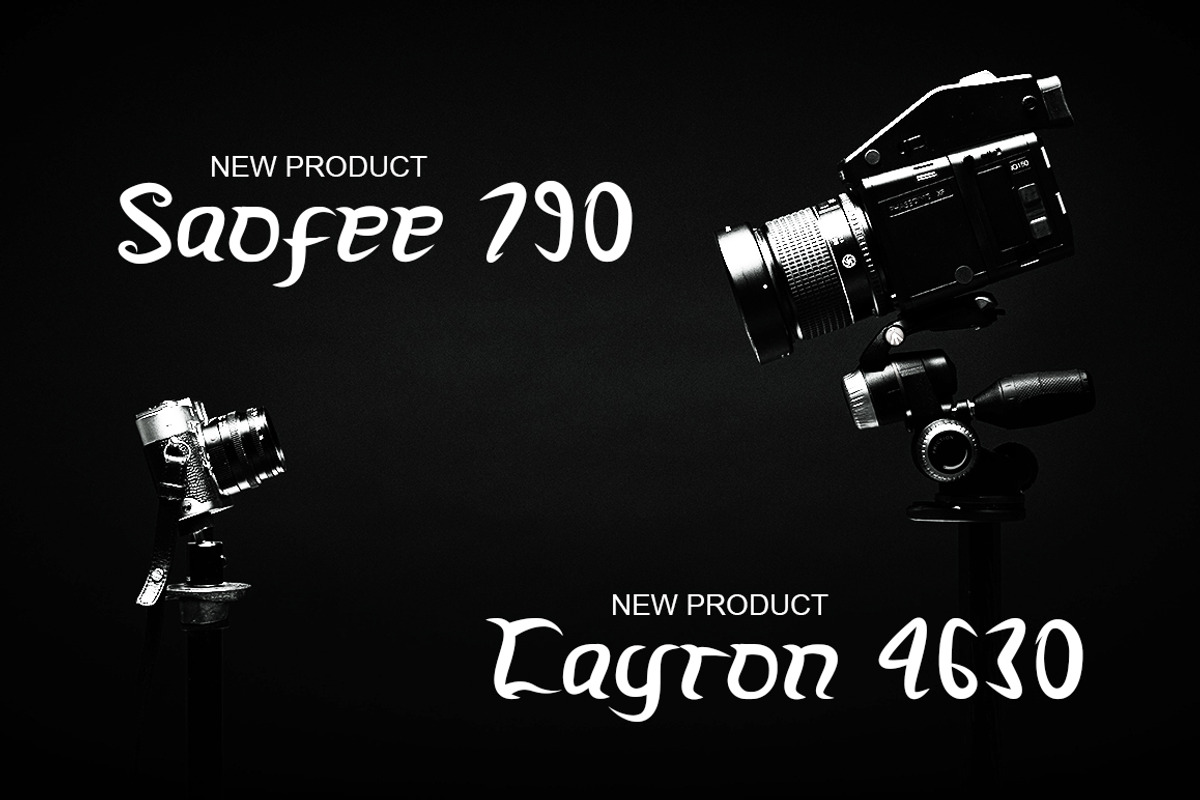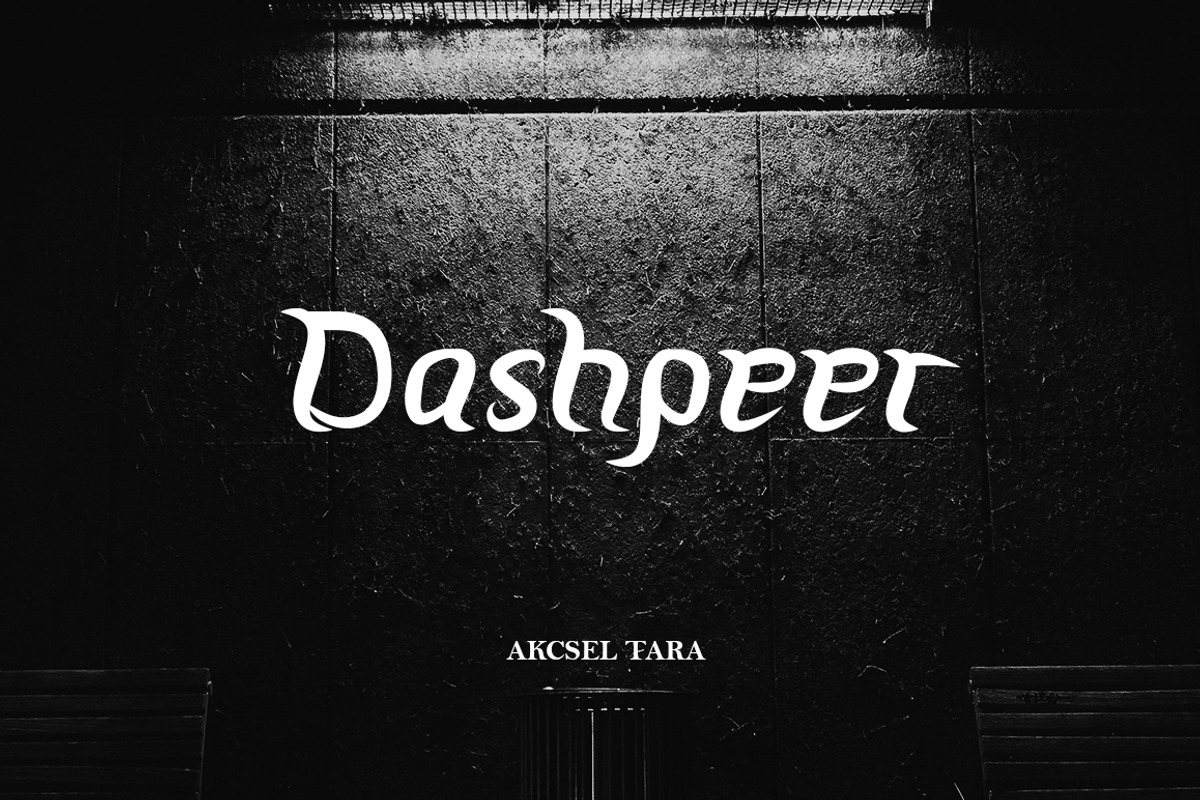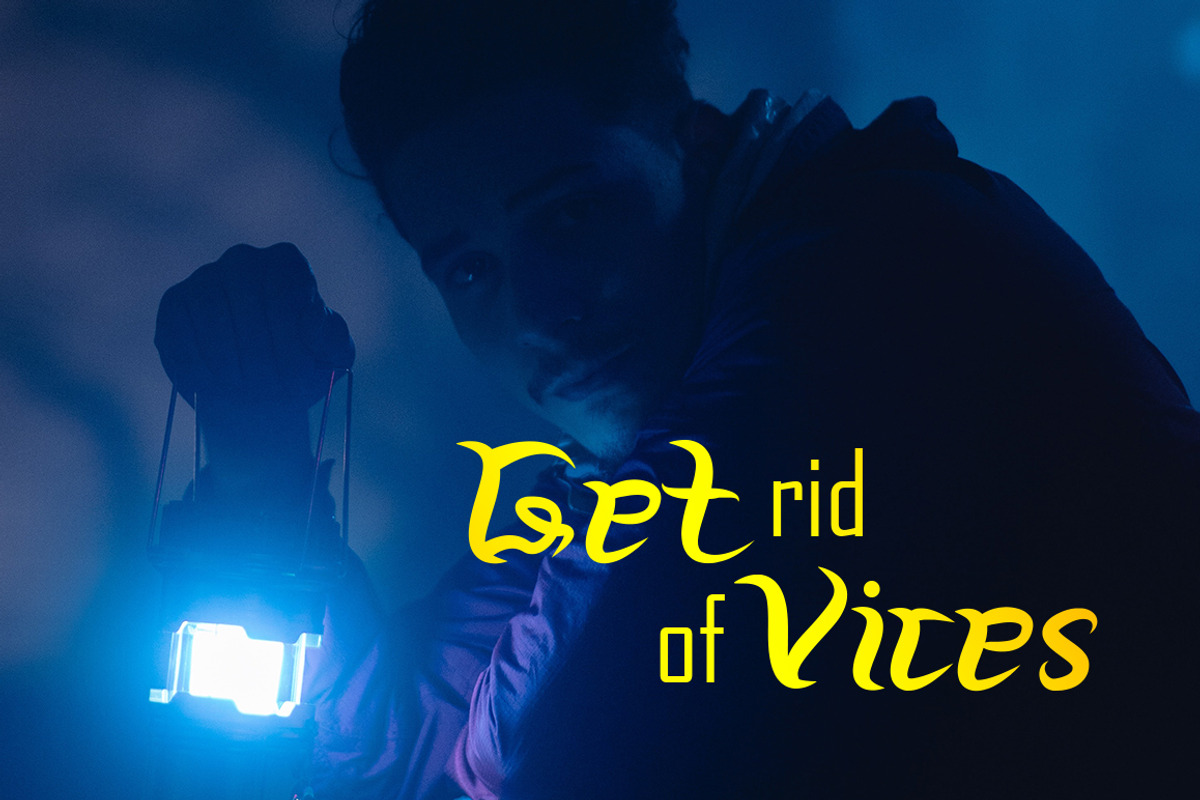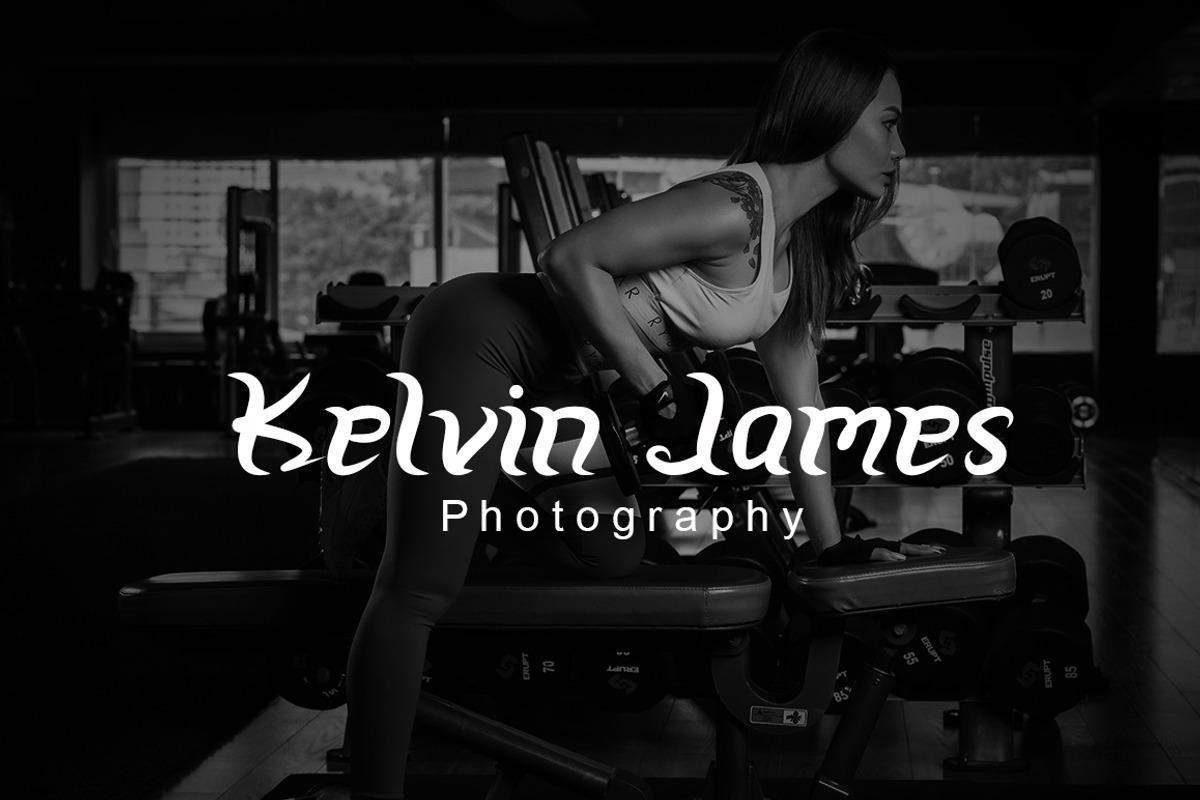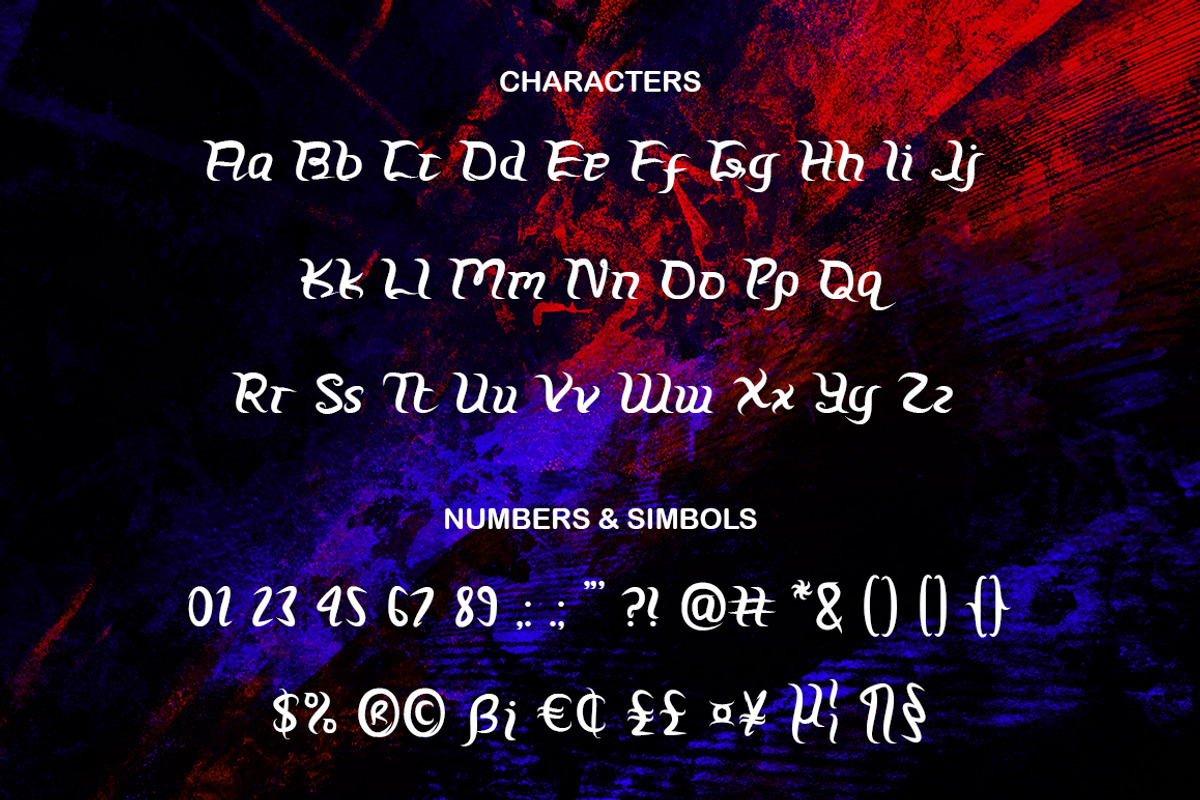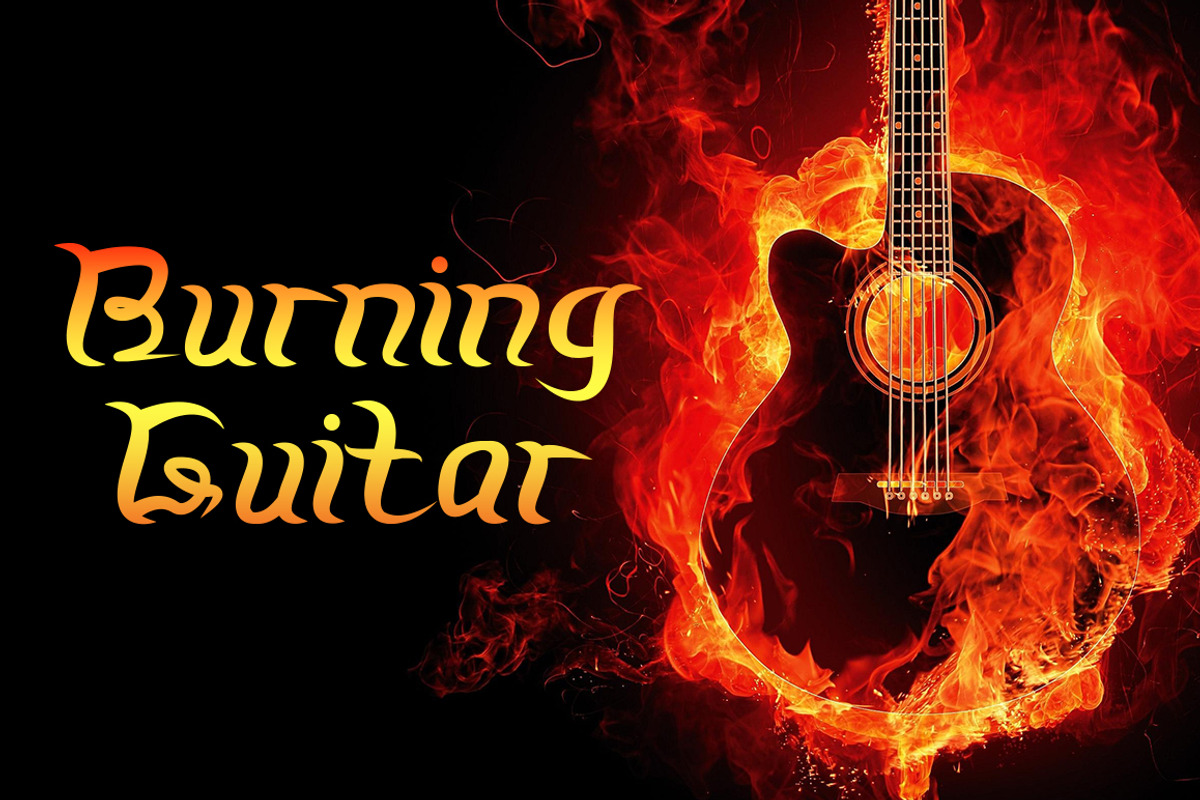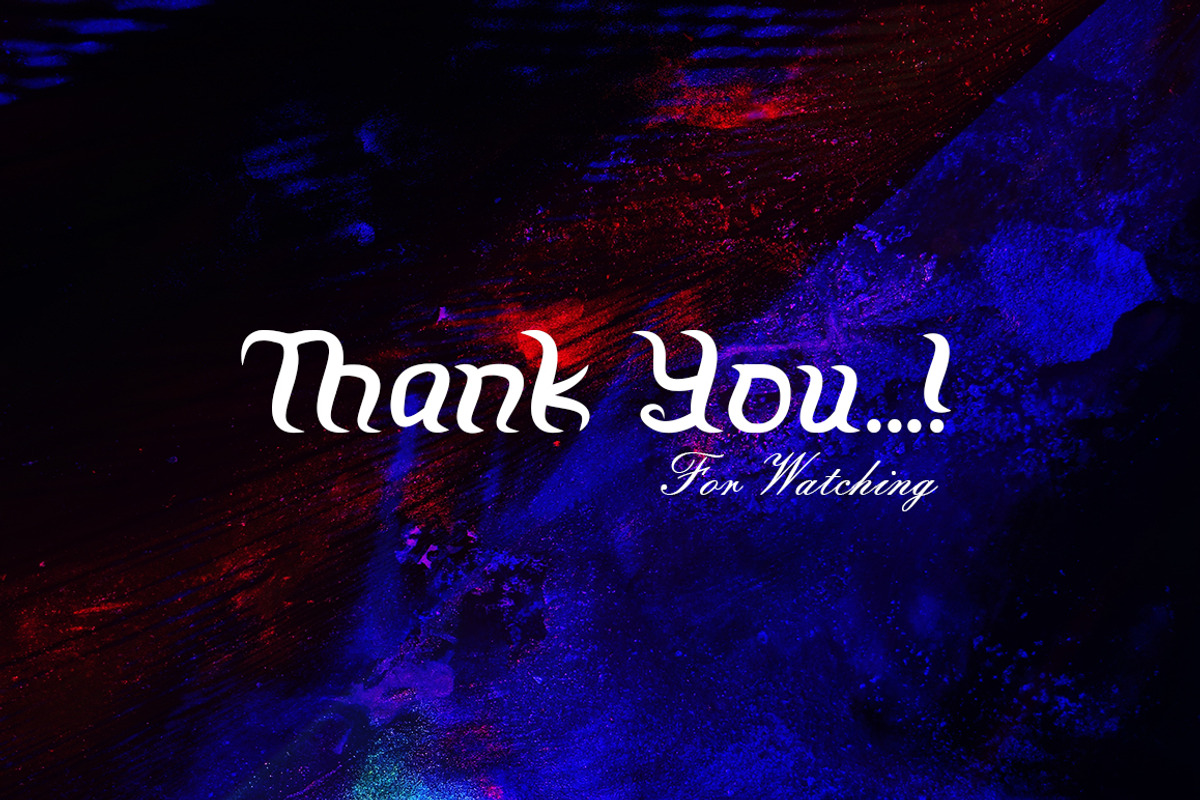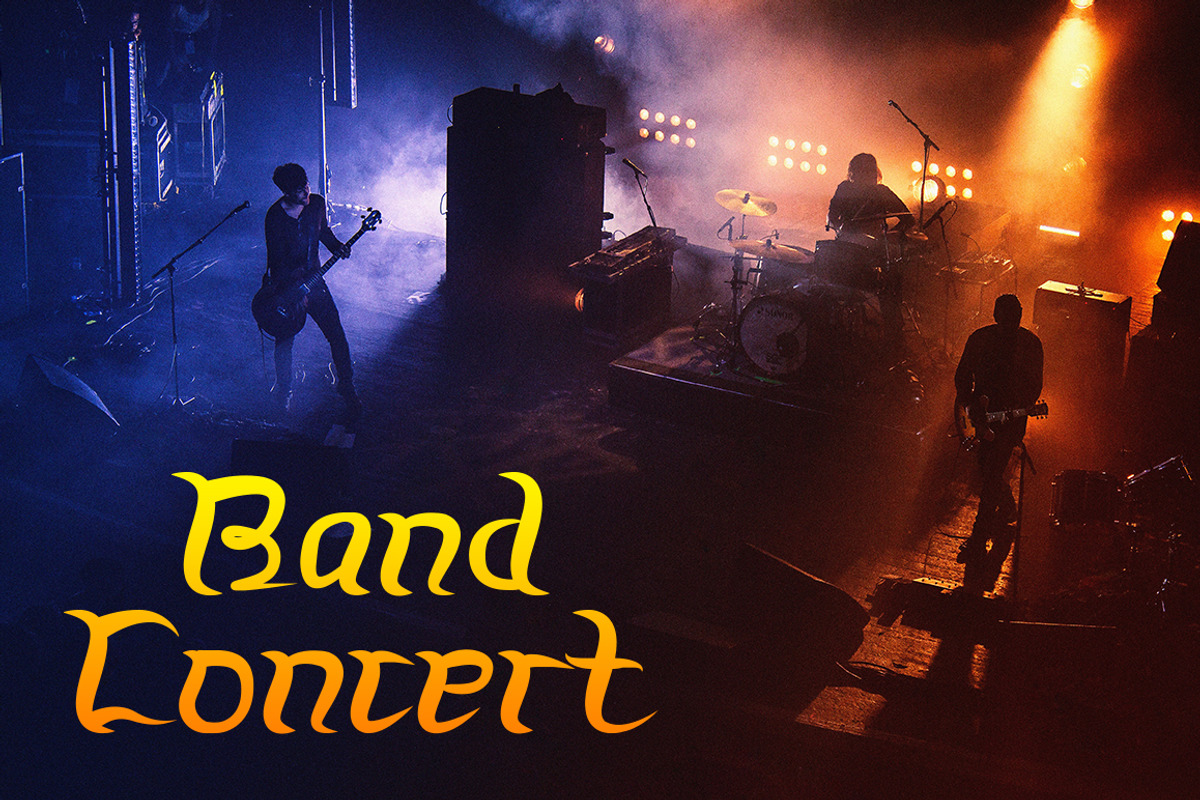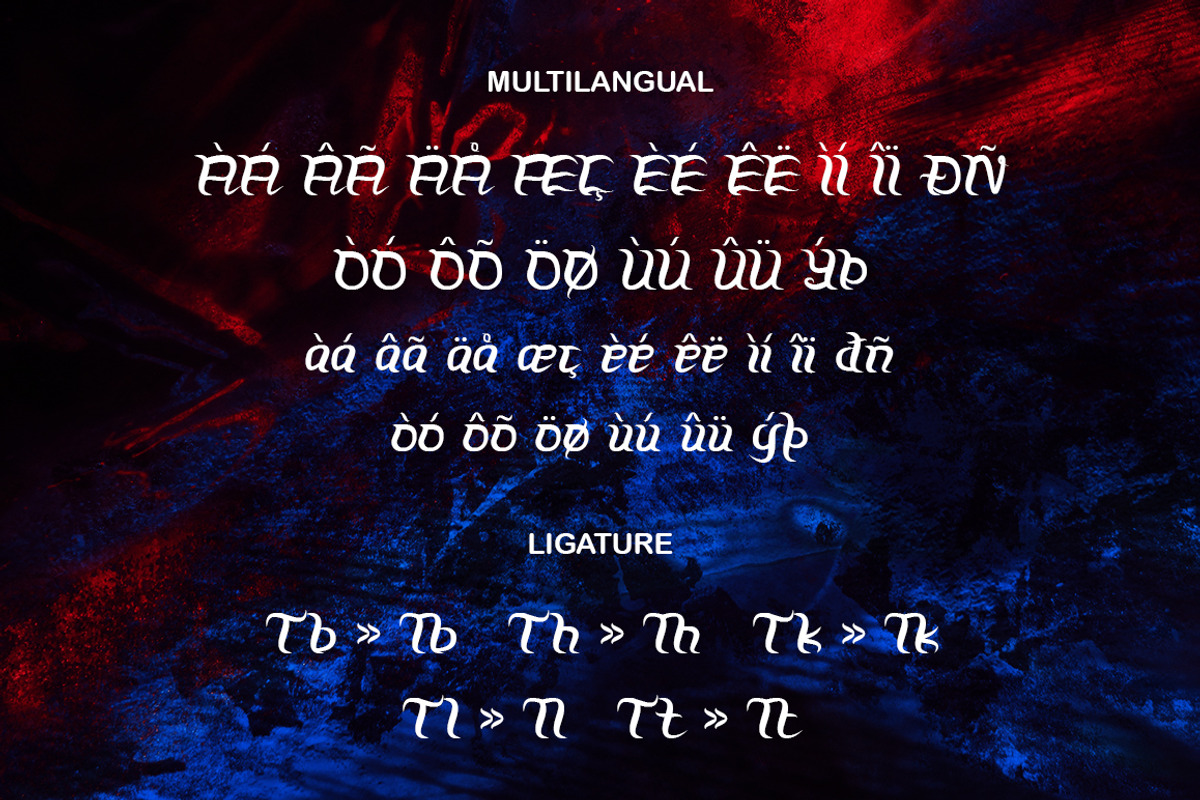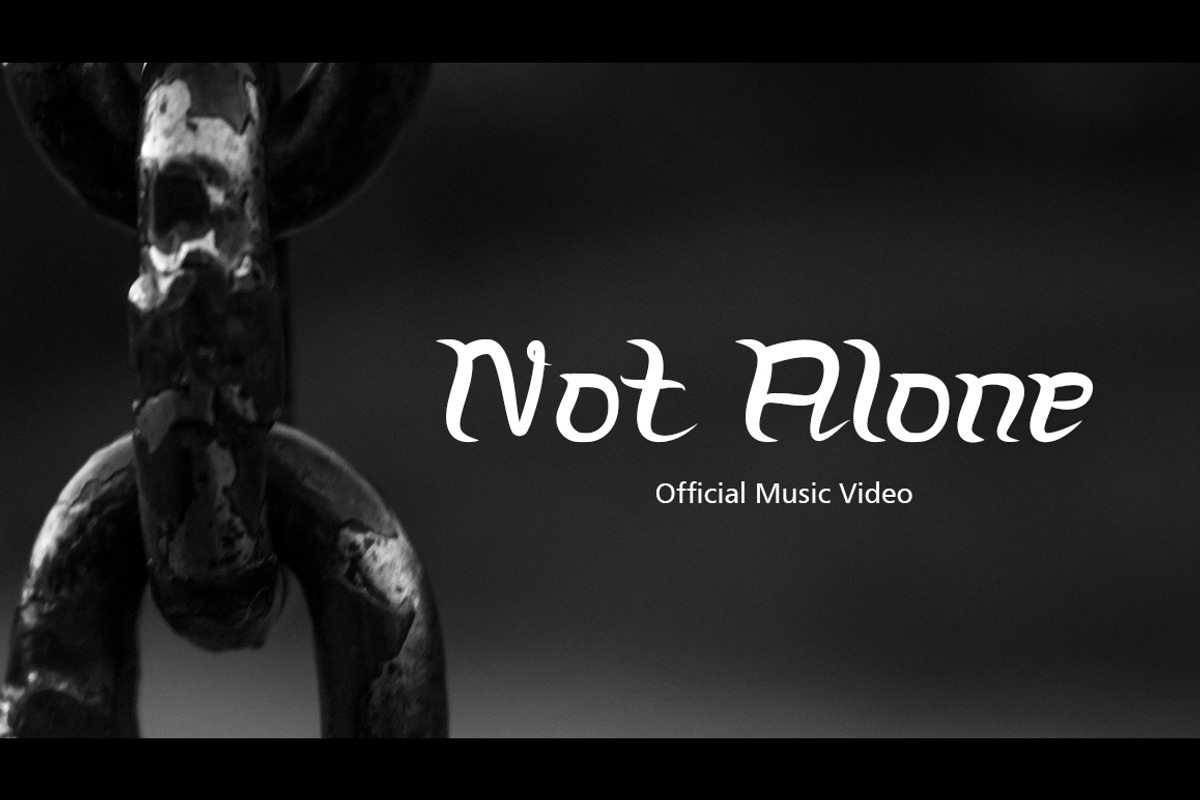
Dashpeer - Display Font
Dashpeer is a unique display font with slightly wavy shapes.
Dashpeer is perfect for logos, music video titles, name card, book titles, brand identity, poster, packaging, any project, and much more.
Dashpeer includes all upper and lower case standard character, punctuation, numerals and ligatures.
- Fonts include multilingual support